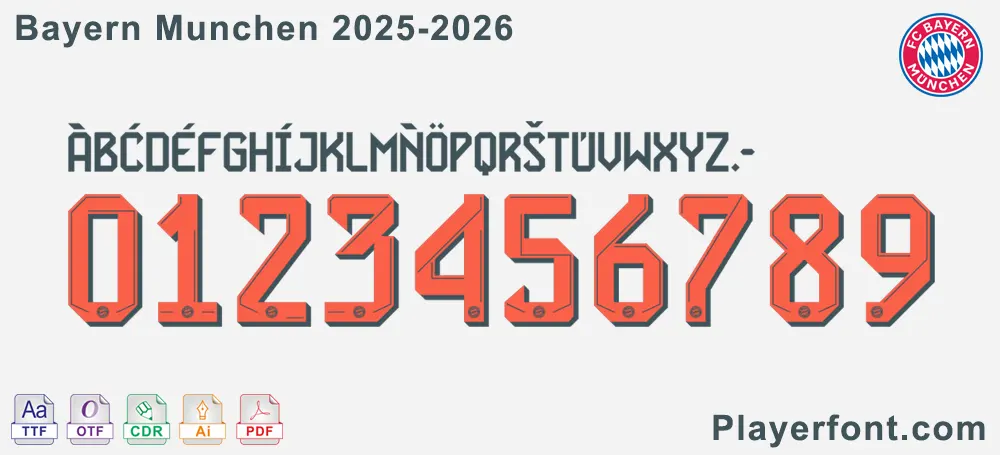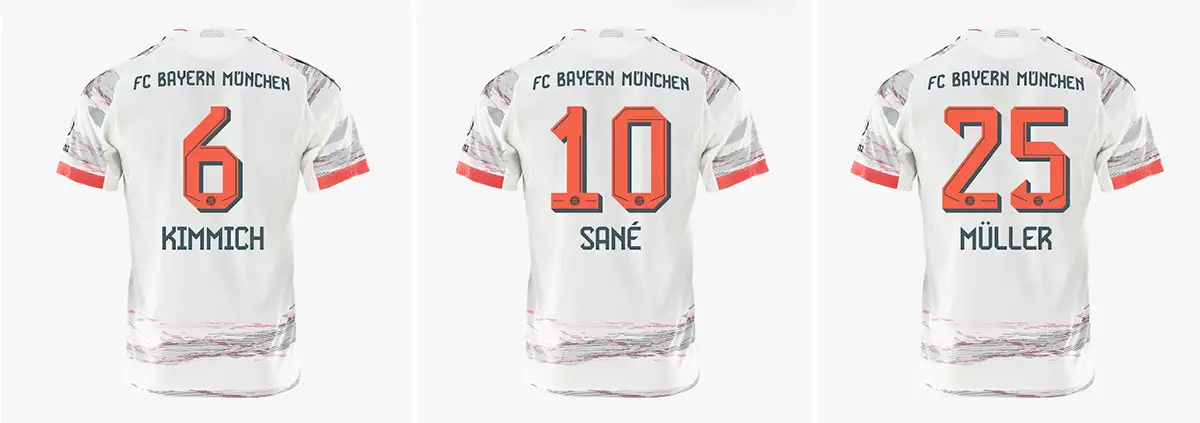
New Bayern München 25-26 Kit Font Released.
Bayern München, one of the most storied football clubs in the world, has once again captured the attention of fans and design enthusiasts alike with the release of their new kit font for the 2025-26 season. This latest typeface is not just a cosmetic update; it represents a significant evolution in the club’s visual identity, blending tradition with modernity in a way that is sure to resonate with supporters and critics alike.
A Subtle Yet Impactful Update
The new Bayern München 25-26 kit font is a refined version of the 2024-25 season’s typeface, maintaining the core structure that fans have come to recognize while introducing subtle yet impactful changes. The most notable update is the addition of intricate detailing that creates a three-dimensional (3D) visual effect. This enhancement gives the numbers and letters a sense of depth and character, elevating the overall aesthetic without sacrificing readability or the cohesive look of the kit.
From a distance, the font retains its clean and modern appearance, ensuring that it remains instantly recognizable as part of Bayern’s iconic branding. However, upon closer inspection, the added shading and angled edges reveal a striking visual upgrade, setting it apart from the flatter design of last season’s font. This thoughtful evolution demonstrates Bayern’s commitment to innovation while respecting the club’s rich heritage.